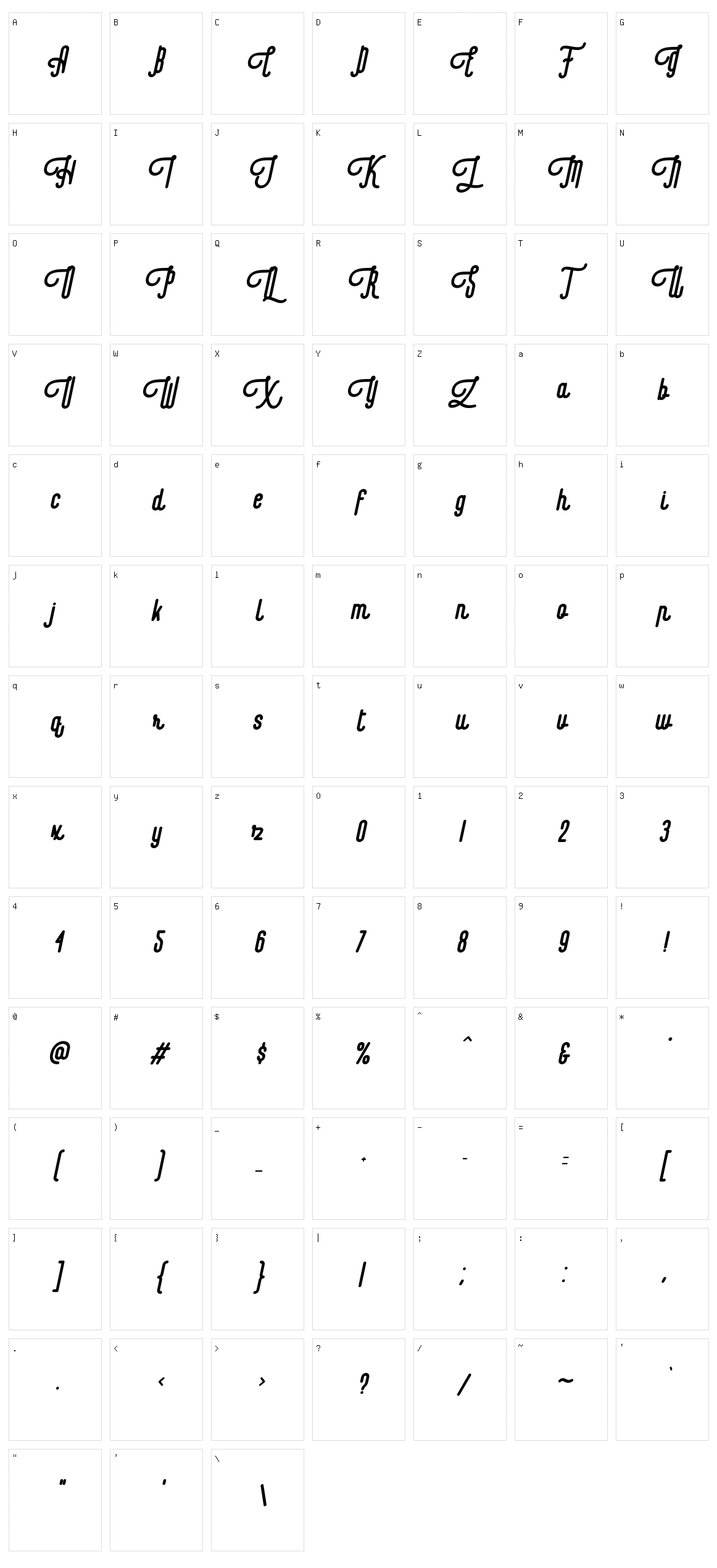
The free font Revolage Script is carefully designed by FallenGraphic Studio, showcasing a thoughtful balance of creativity and usability and falls under the Old-School font style. When you download the ZIP file, it contains only 1019.68 KB of font files, making it lightweight and quick to download. Please review the license details below to understand permitted usage and distribution rights. If license information is not available, we recommend using this font for personal projects only or contacting the author directly for commercial usage permissions.